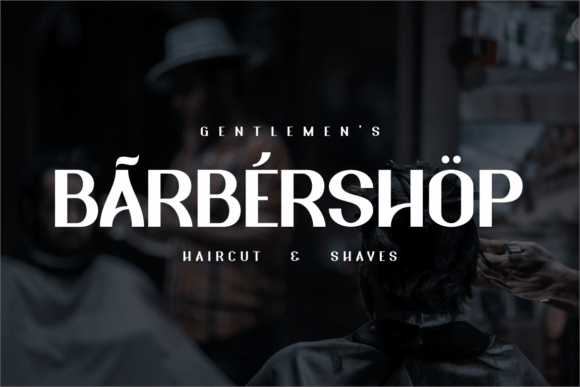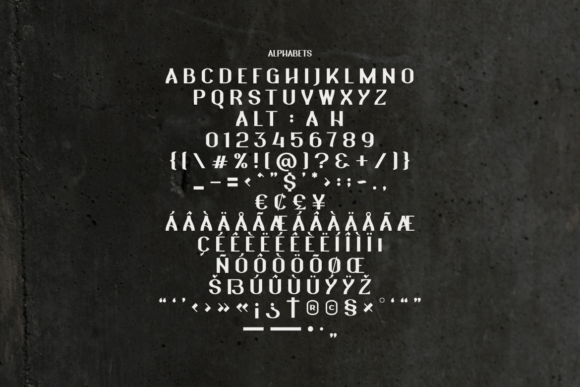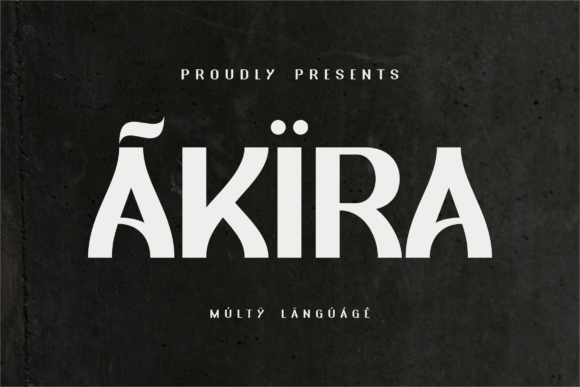
Akira Font: Elevate Your Designs with a Cool and Stylish Sans Serif Font
Akira is a cool and incredibly stylish sans serif font that has been making waves in the design community. With its sleek lines, modern aesthetic, and captivating charm, this font is sure to take your designs to the next level. In this article, we’ll dive into the world of Akira Font, exploring its features, benefits, and uses, and discover how it can make your designs stand out from the crowd.
The Birth of Akira Font
Akira Font is a sans serif font, which means it doesn’t have the small lines or flourishes that are characteristic of serif fonts. This gives Akira a clean and minimalist look that’s perfect for designs that require a modern and edgy feel. The font’s sleek lines and curves are carefully crafted to create a sense of fluidity and movement, making it ideal for designs that need to convey a sense of dynamism and energy.
Key Features of Akira Font
So, what makes Akira Font so special? Here are some of its key features:
- Clean and minimalist design: Akira’s sans serif design gives it a clean and minimalist look that’s perfect for modern designs.
- Sleek lines and curves: The font’s sleek lines and curves create a sense of fluidity and movement, making it ideal for designs that need to convey energy and dynamism.
- Captivating charm: Akira’s unique design elements give it a captivating charm that’s sure to grab attention.
- Versatile: Akira is a versatile font that can be used for a wide range of designs, from logos and branding to headings and body text.
Benefits of Using Akira Font
So, why should you use Akira Font in your designs? Here are some of the benefits:
- Stand out from the crowd: Akira’s unique design elements will help your designs stand out from the crowd and grab attention.
- Convey a modern and edgy feel: Akira’s sleek lines and curves will give your designs a modern and edgy feel that’s perfect for brands that want to appear cutting-edge.
- Improve readability: Akira’s clean and minimalist design makes it easy to read, even at small font sizes.
- Increase brand recognition: By using Akira Font in your designs, you can create a consistent brand identity that will help increase brand recognition.
Uses of Akira Font
Akira Font is a versatile font that can be used for a wide range of designs, including:
- Logos and branding: Akira’s unique design elements make it perfect for logos and branding.
- Headings and titles: Akira’s sleek lines and curves make it ideal for headings and titles.
- Body text: Akira’s clean and minimalist design makes it easy to read, even at small font sizes.
- Advertising and marketing materials: Akira’s captivating charm makes it perfect for advertising and marketing materials.
Tips for Using Akira Font
Here are some tips for using Akira Font in your designs:
- Use it sparingly: Akira Font is a bold font, so use it sparingly to avoid overwhelming your designs.
- Experiment with different colors: Akira Font looks great in a wide range of colors, so experiment with different colors to find the one that works best for your design.
- Pair it with other fonts: Akira Font can be paired with other fonts to create a unique and interesting design.
In conclusion, Akira Font is a cool and incredibly stylish sans serif font that’s perfect for designers and crafters who want to add a touch of modernity and edge to their designs. With its sleek lines, captivating charm, and versatile design, Akira Font is sure to take your designs to the next level. So why not give it a try and see how it can make your designs stand out?